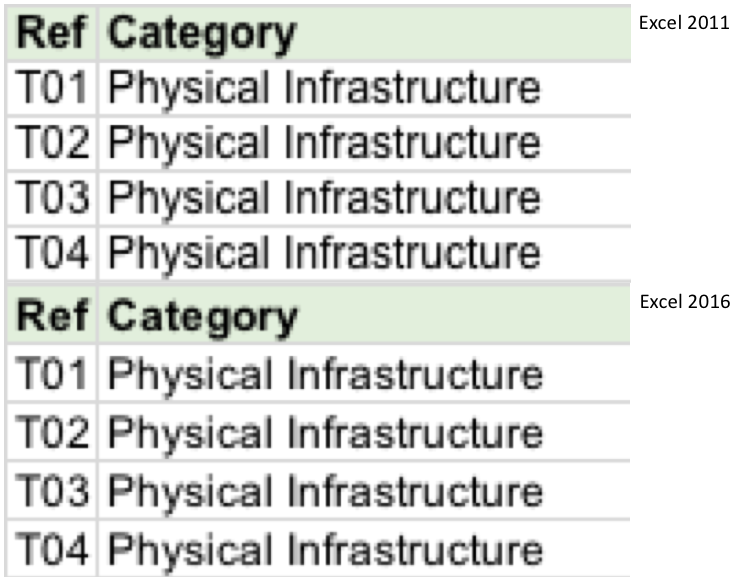
Font Rendering in Excel 2016
I have Office 2011 and Office 2016 on the machine. Excel does some weird stuff with fonts, including scrambling the order of text as you edit it.
I have made an image of the font rendering side by side here:
At this scale, the two look just as fuzzy as each other, but on-screen the Excel 2011 version is much easier and clearer on the eye.
Additionally, Excel 2016 is scrambling text as I edit it - moving individual characters around.
Have to agree, font rendering in Excel is really subpar. Fonts look jagged, especially fonts with "light" weights...like Calibri Light. In Excel 2011, everything is smooth but my spreadsheet looks terrible in Excel 2016.
The shots above are on a non-retina iMac. I'll try the same test at home using my Retina Macbook and see how it compares.
Do you have a Mac with Retina Display? If not that what you should expect.  2016 is tuned for Retina Display or is supposed to. However 2011 was written before Retina display existed. Though some support was added not to extent in 2016. Therefore non Retina Display Mac will look not so good.
As for the letter (character) swapping. Don't know what is causing that.